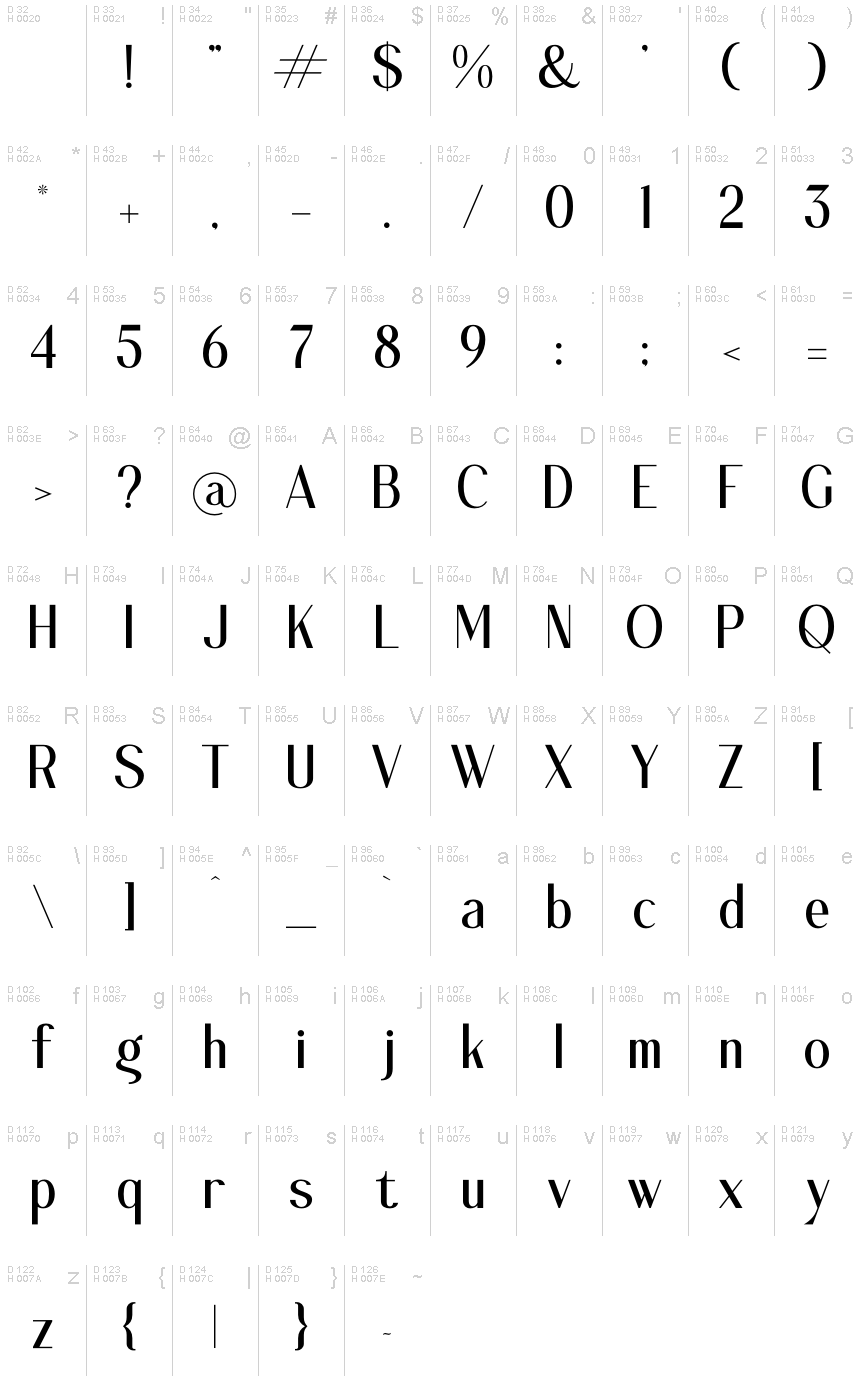
Maghikle
Maghikle, a striking sans-serif font crafted by Storytype Studio, exudes a captivating blend of modernity and elegance. Its condensed design lends a distinct visual rhythm, creating a sense of refinement and precision. The clean lines and carefully balanced proportions evoke a sophisticated yet approachable aesthetic, making it an intriguing choice for a wide range of design projects.
Maghikle's versatile nature allows it to seamlessly adapt to various applications, from editorial layouts and branding initiatives to digital interfaces and packaging designs. Its strong personality and legibility make it a compelling option for attention-grabbing headlines, impactful typographic compositions, and clear communication of information. Designers seeking a font that strikes a balance between style and functionality will find Maghikle a valuable addition to their creative toolkits.